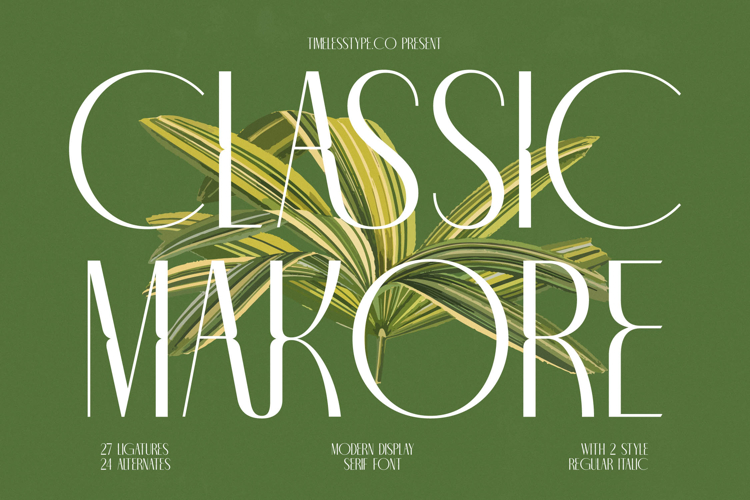
Classic Makore - Modern Display Serif Font
Classic Makore - Modern Display Serif Font redefines elegance with a striking blend of classic sophistication and contemporary flair. This exquisite modern display serif typeface commands attention, featuring high-contrast strokes and beautifully crafted letterforms that exude luxury and refinement. Its unique character architecture makes it an ideal choice for projects demanding a touch of upscale artistry and timeless appeal.
Unlock unparalleled creative flexibility with Classic Makore - Modern Display Serif Font, boasting an impressive collection of 27 ligatures and 24 alternates. These extensive OpenType features allow for truly customized typography, ensuring every design is unique and memorable. Available in both Regular and Italic styles, it offers versatility for diverse design needs, from bold headlines to elegant subtext.
Expand your design reach globally with ease. With its extensive multilingual support, Classic Makore - Modern Display Serif Font adapts seamlessly across global markets, making it incredibly versatile for international projects. This ensures your brand message resonates universally, maintaining its distinctive elegance regardless of language barriers.